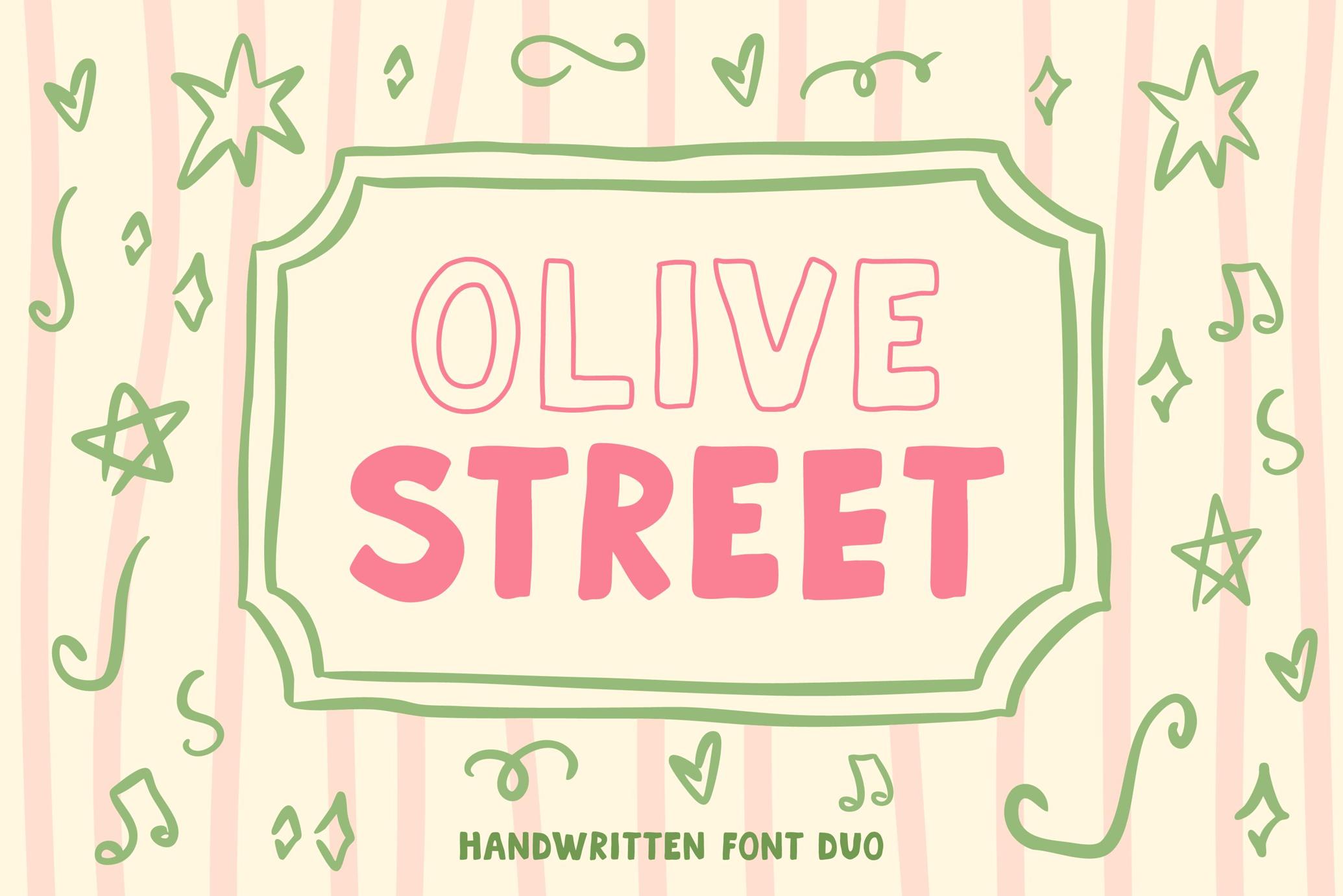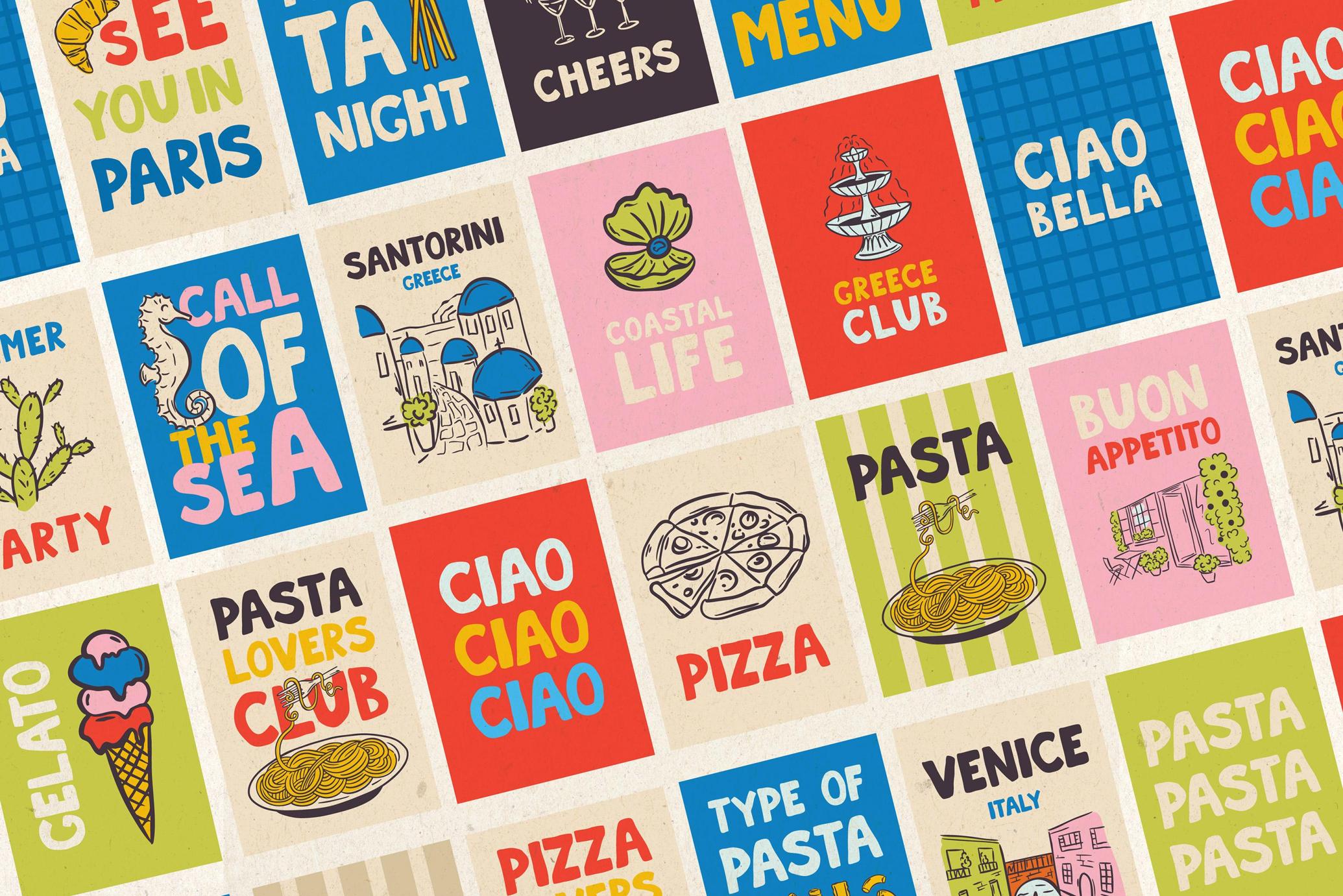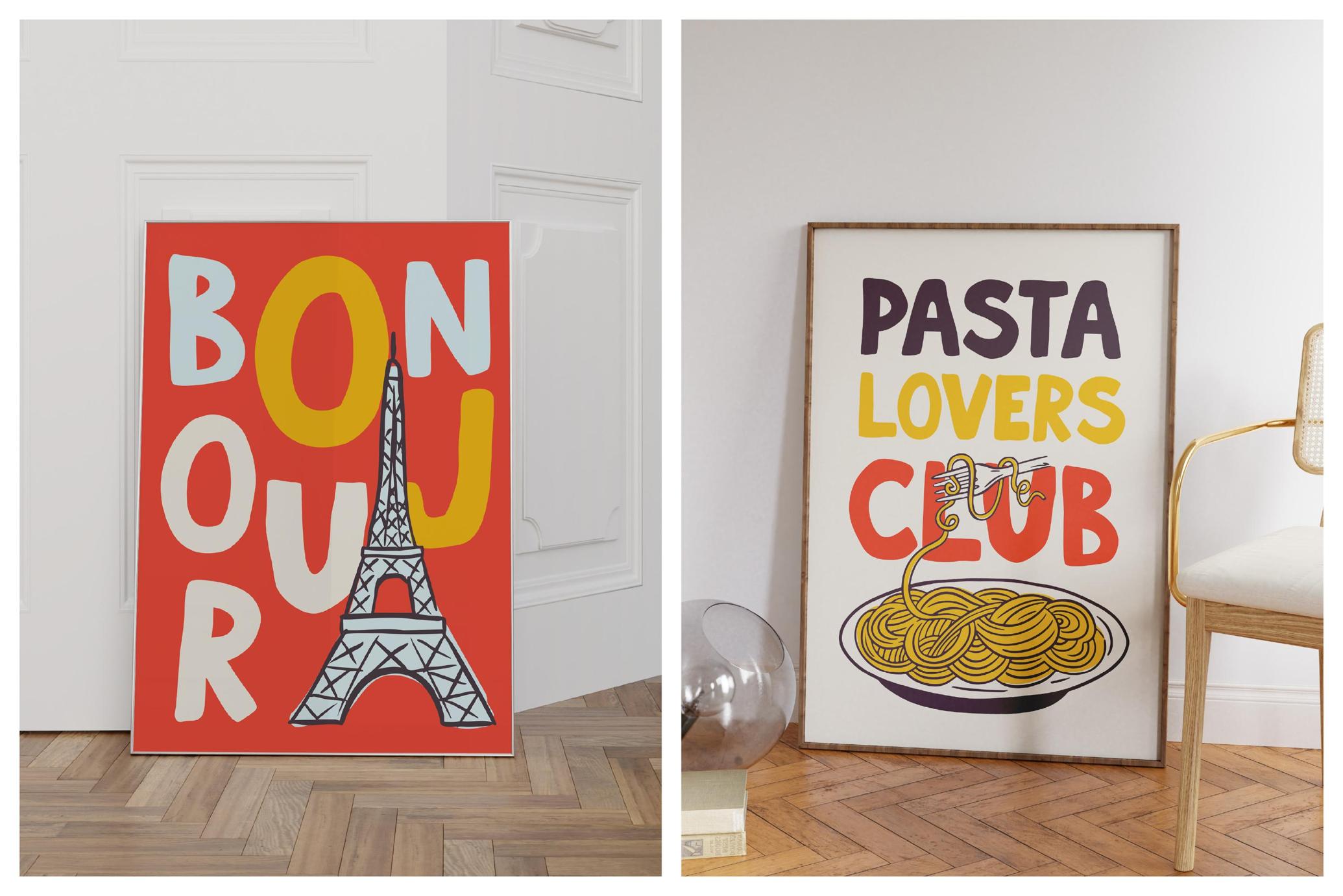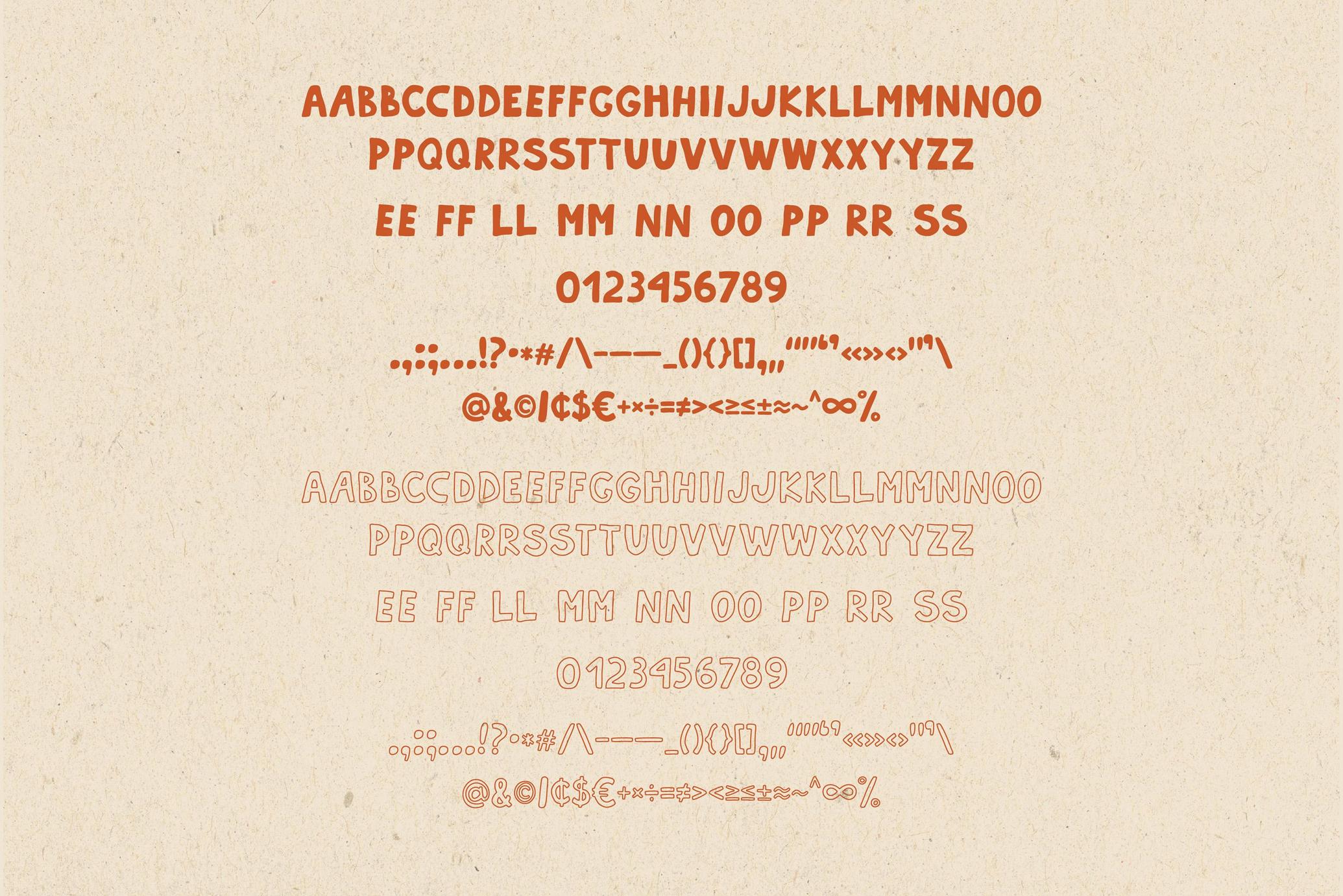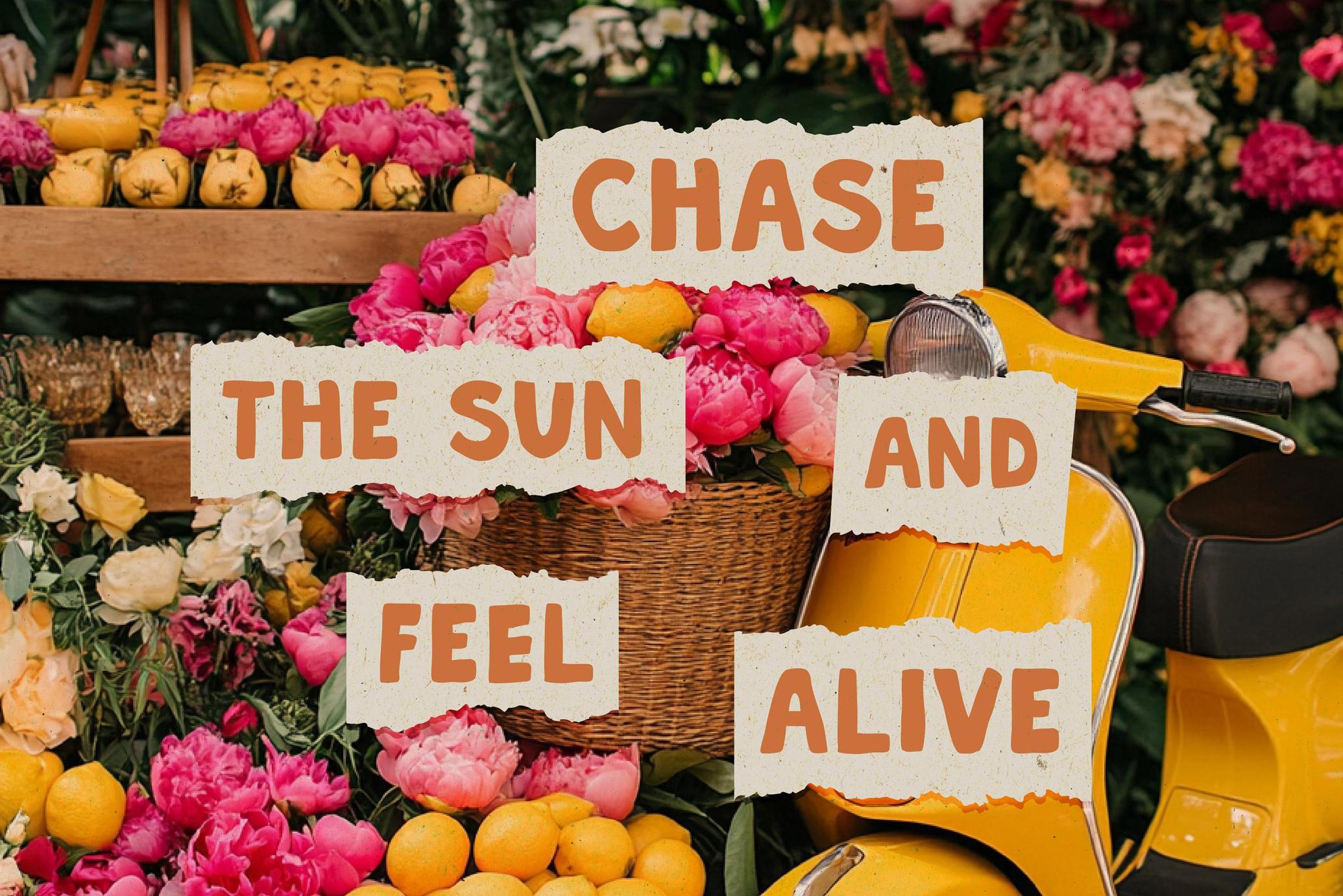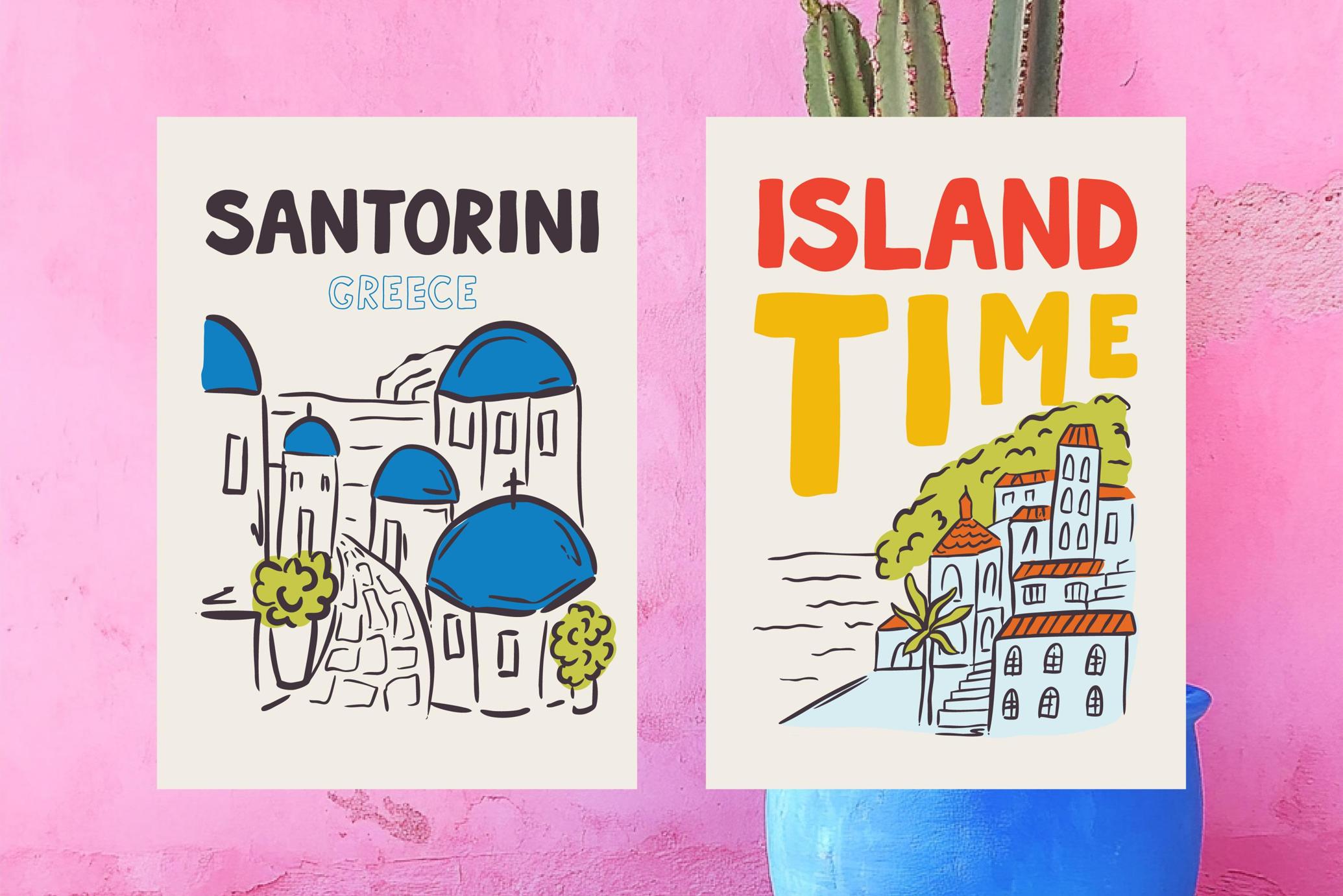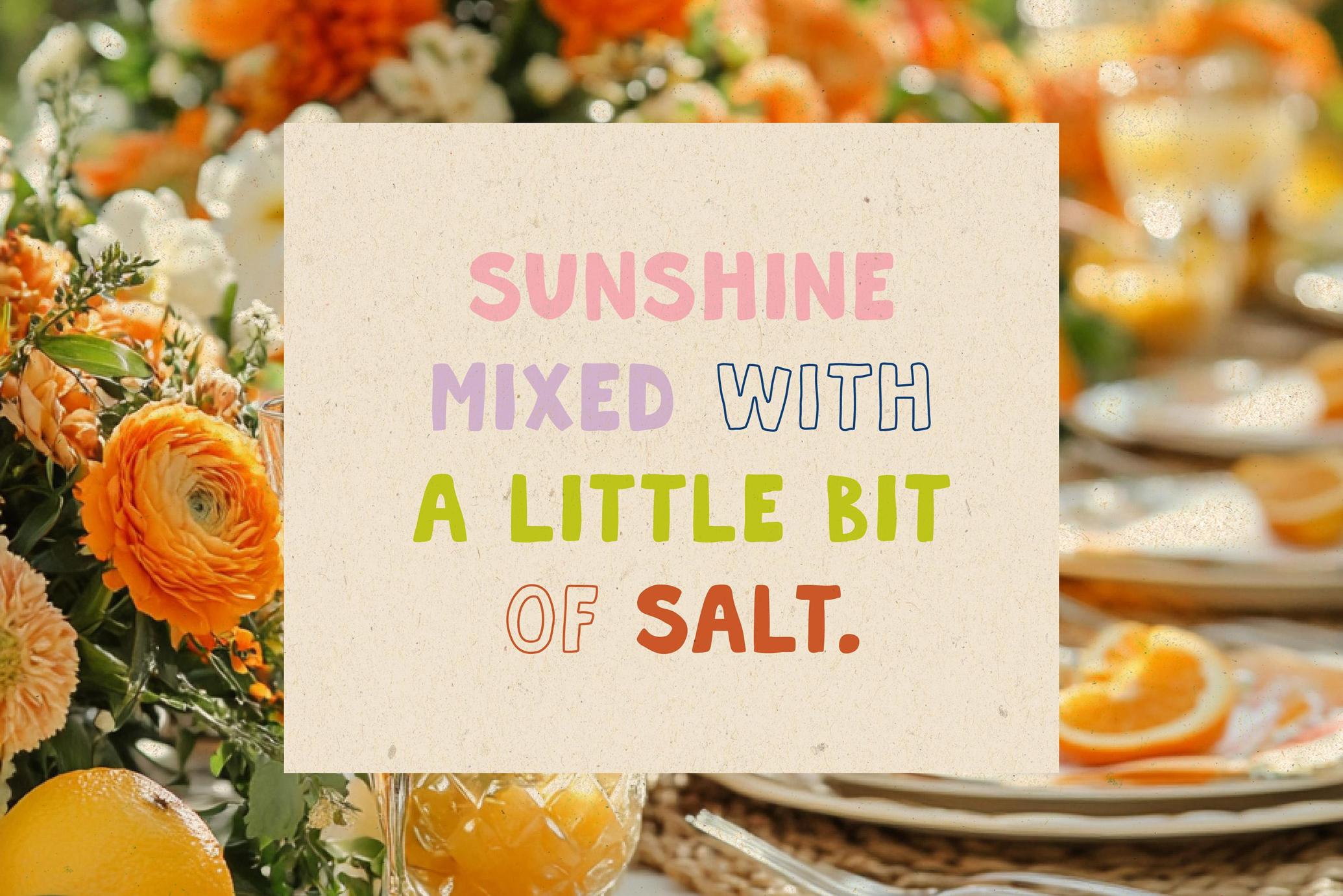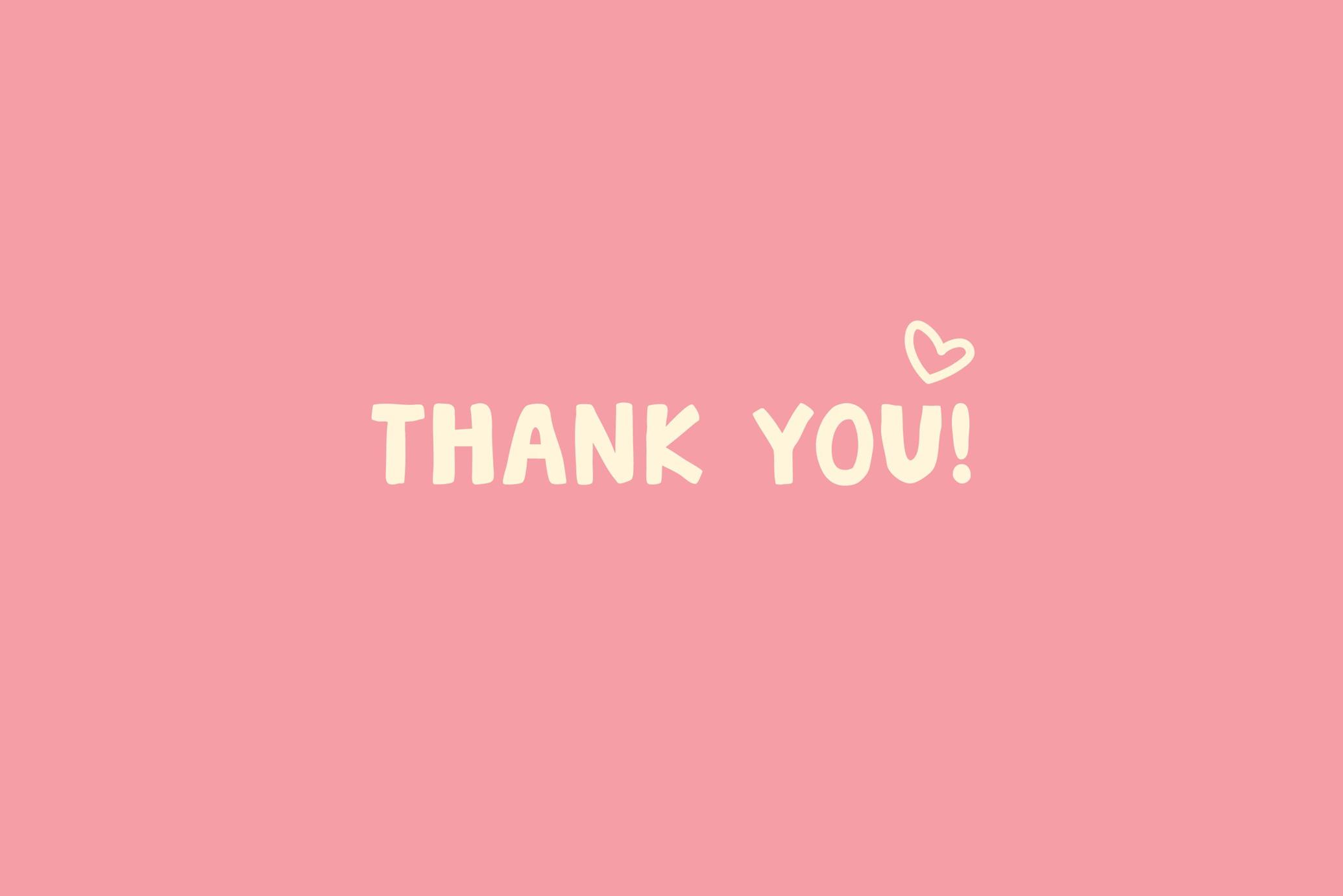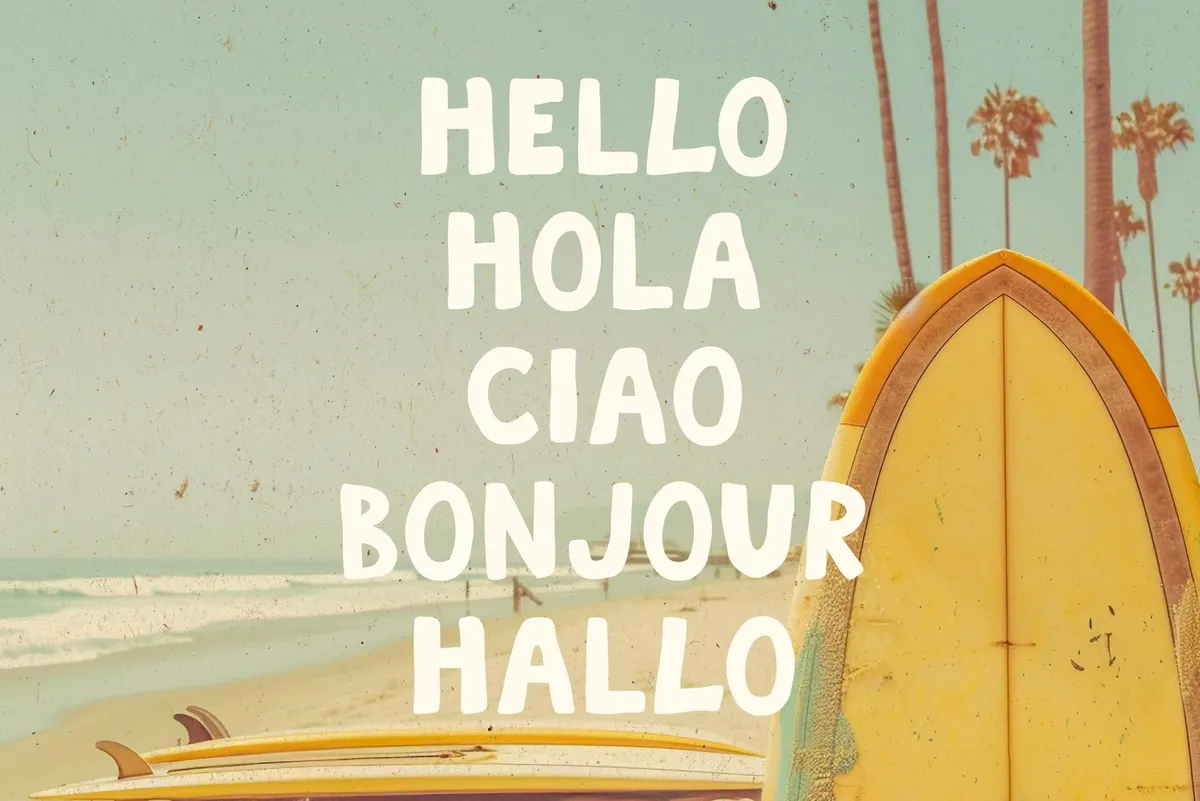
Olive Street Font Duo
Olive Street duo pairs a solid, chunky style with a lighter outline that traces the same forms — perfect for layering or easy contrast. Rhythm stays loose and lively, with letter shapes that keep headlines warm and legible. Playful strokes and soft corners give the letters a friendly, hand-cut feel.
Use it for kids’ book covers, travel postcards, food packaging, café menus, craft labels, greeting cards, sticker sheets, event posters, teacher resources, and cheerful social graphics.